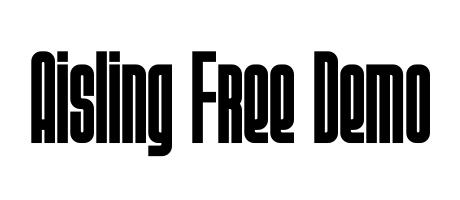
Aisling Free Demo
Aisling Free Demo: A bold, contemporary sans-serif font, Aisling boasts a clean, strong presence. Its slightly condensed letterforms create a modern feel, ideal for headlines, branding, and short impactful text. Its free demo version allows for exploration of its versatile style before committing to the full version.